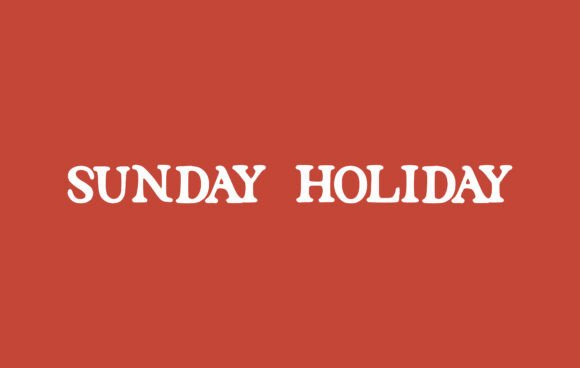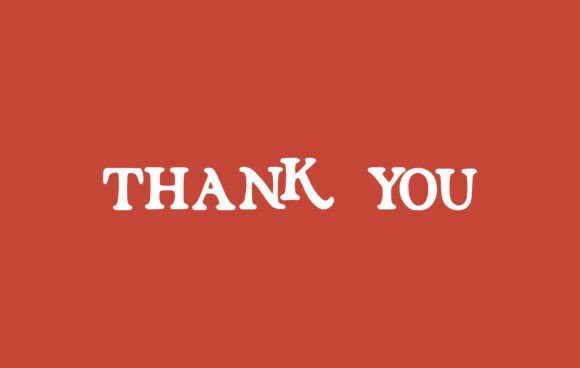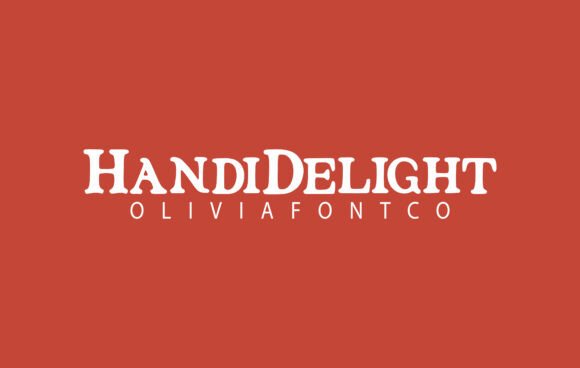
Introducing Handidelight Font: The Perfect Blend of Romance and Legibility
Are you a designer or crafter looking for a font that can elevate your creative projects to new heights? Look no further than Handidelight Font, an authentic handwritten font with a romantic touch. In this article, we’ll explore the features and benefits of Handidelight Font, and how it can become your go-to choice for a wide range of design applications.
What is Handidelight Font?
Handidelight Font is a beautifully crafted handwritten font that exudes a sense of romance and elegance. Expertly designed to be a true favorite among designers and crafters, this font has the potential to take your creative ideas to the highest level. With its unique blend of classic and modern elements, Handidelight Font is perfect for those looking to add a touch of sophistication to their designs.
Key Features of Handidelight Font
So, what makes Handidelight Font so special? Here are some of its key features:
- Legibility: Handidelight Font is designed to be highly legible, making it perfect for use as both title and body text.
- Romantic Touch: This font has a distinctly romantic feel, making it ideal for designs that require a touch of elegance and sophistication.
- Versatility: Handidelight Font can be used for a wide range of design applications, from magazine headlines and social media graphics to branding, wedding invitations, and cards.
- Authentic Handwritten Look: This font has an authentic handwritten look that sets it apart from more generic fonts.
Design Applications for Handidelight Font
So, how can you use Handidelight Font in your designs? Here are some ideas to get you started:
- Magazine Headlines: Use Handidelight Font to create eye-catching headlines that grab readers’ attention.
- Social Media Graphics: Add a touch of elegance to your social media graphics with Handidelight Font.
- Branding: Use Handidelight Font to create a unique and memorable brand identity.
- Wedding Invitations: Make your wedding invitations truly special with Handidelight Font.
- Cards: Use Handidelight Font to create beautiful and heartfelt cards for any occasion.
Why Choose Handidelight Font?
With so many fonts to choose from, why should you choose Handidelight Font? Here are just a few reasons:
- Unique Look: Handidelight Font has a unique and distinctive look that sets it apart from other fonts.
- High Legibility: This font is designed to be highly legible, making it perfect for use in a wide range of design applications.
- Versatile: This font can be used for a wide range of design applications, making it a great value for designers and crafters.
In conclusion, Handidelight Font is a beautiful and versatile handwritten font that is perfect for designers and crafters looking to add a touch of romance and elegance to their designs. With its unique blend of classic and modern elements, high legibility, and ease of use, Handidelight Font is sure to become your go-to choice for a wide range of design applications. So why wait? Try Handidelight Font today and see the difference it can make in your designs!